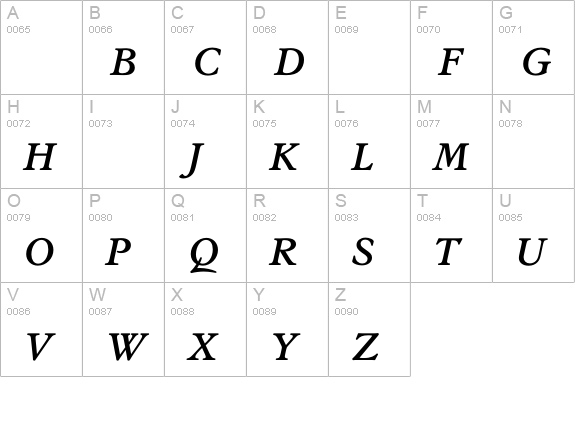
StanhopeMediumItalic Font Details
StanhopeMediumItalic font is a versatile and elegant typeface that exudes sophistication and style. Its flowing italic design adds a touch of grace and beauty to any text or design project. With its medium weight, StanhopeMediumItalic strikes the perfect balance between legibility and visual impact. Whether used for headlines, titles, or body text, this font effortlessly captures attention and commands authority. What makes StanhopeMediumItalic even more appealing is the fact that it is completely free. Yes, you read that right – this stunning font is freely available to download at FontsMarket.com. Now you can elevate your designs without breaking the bank. The designers behind StanhopeMediumItalic have paid meticulous attention to detail, ensuring that every curve and stroke is perfectly crafted. The result is a font that is not only visually appealing but also highly readable, making it a perfect choice for both print and digital media. Whether you're designing a logo, creating a website, or enhancing a presentation, StanhopeMediumItalic font will undoubtedly make a lasting impression. Its timeless elegance and effortless charm will captivate your audience and leave them wanting more. So why wait? Take advantage of this incredible opportunity to download StanhopeMediumItalic font for free at FontsMarket.com and unlock a world of design possibilities. Elevate your projects, captivate your audience, and make a statement with this extraordinary font.